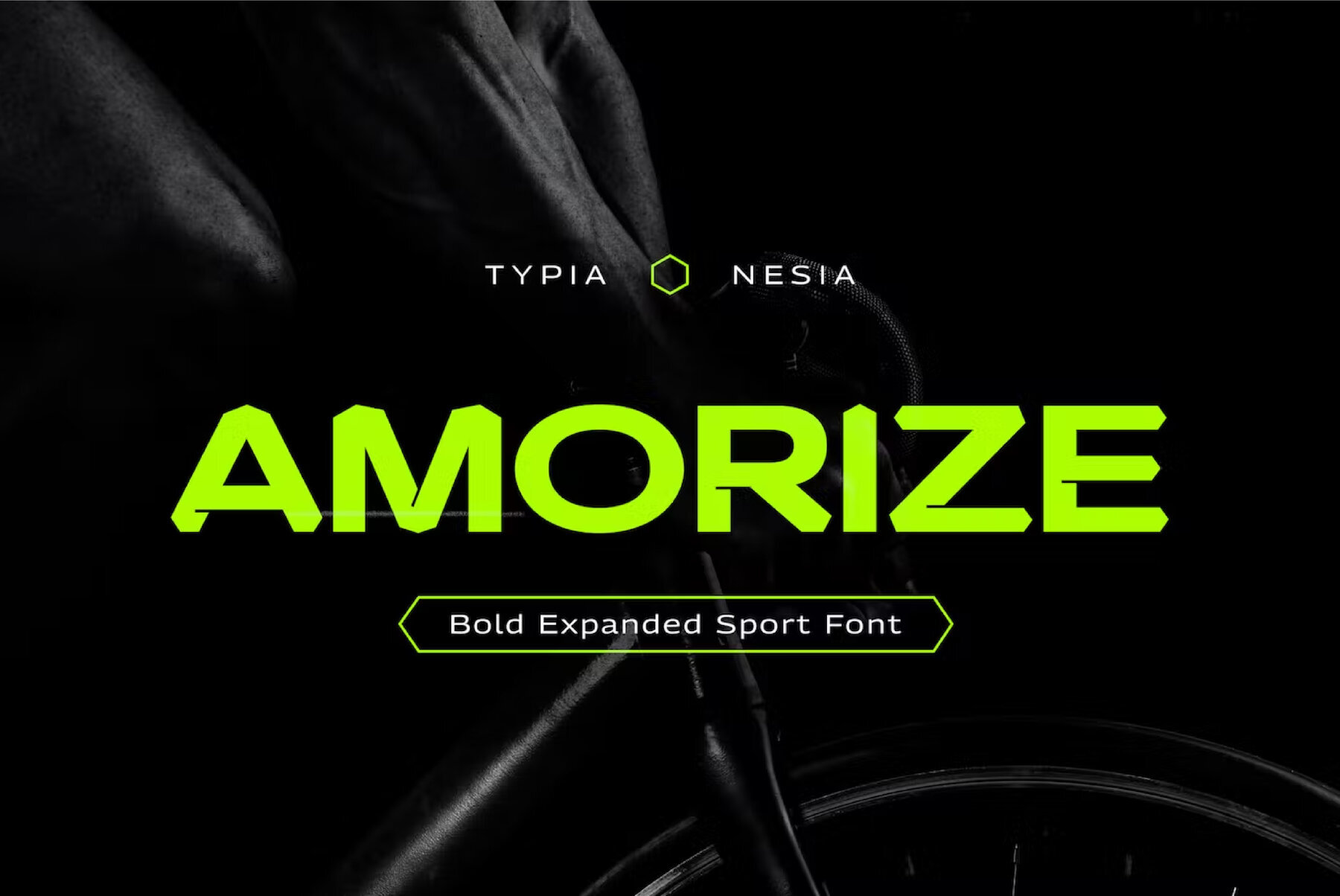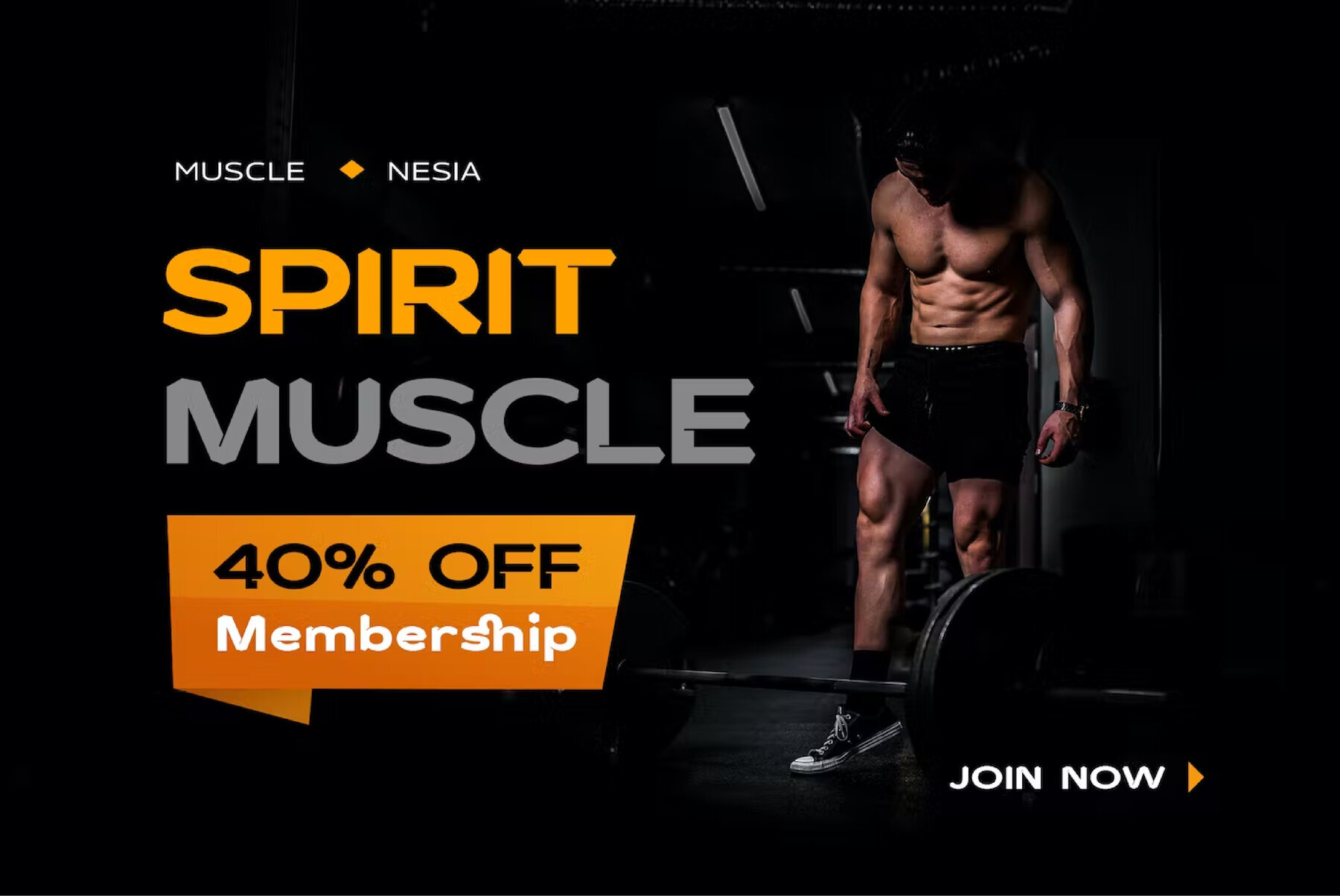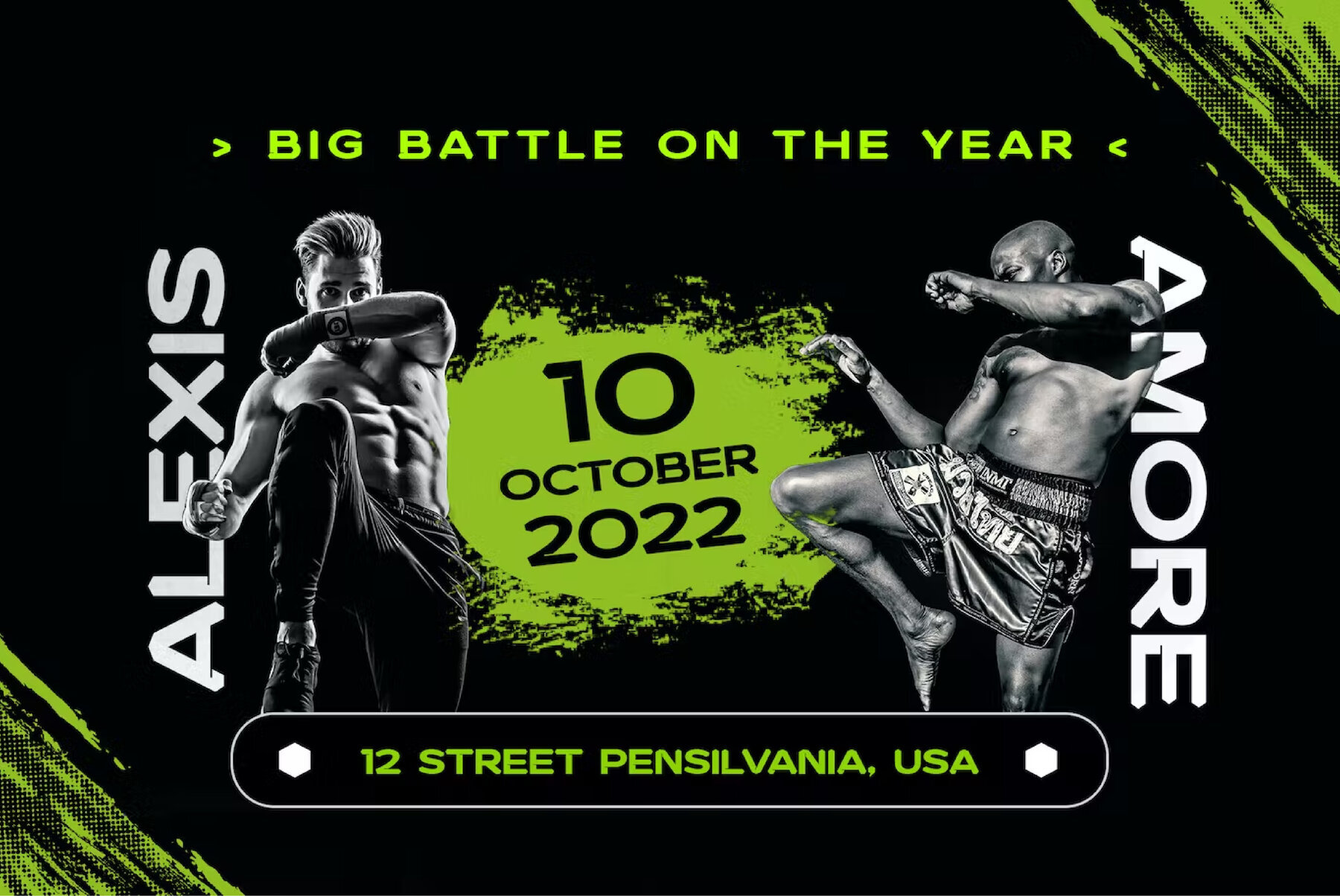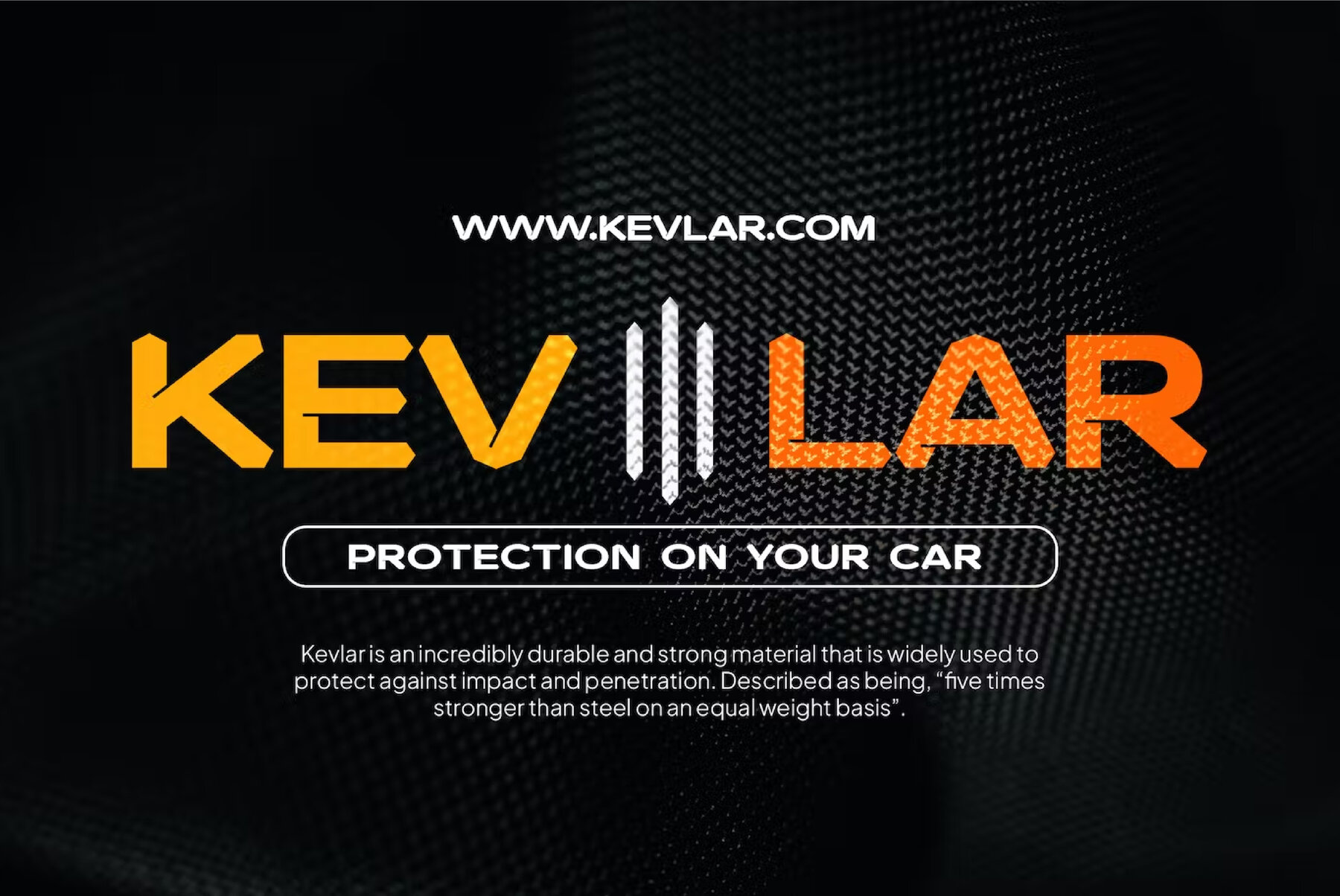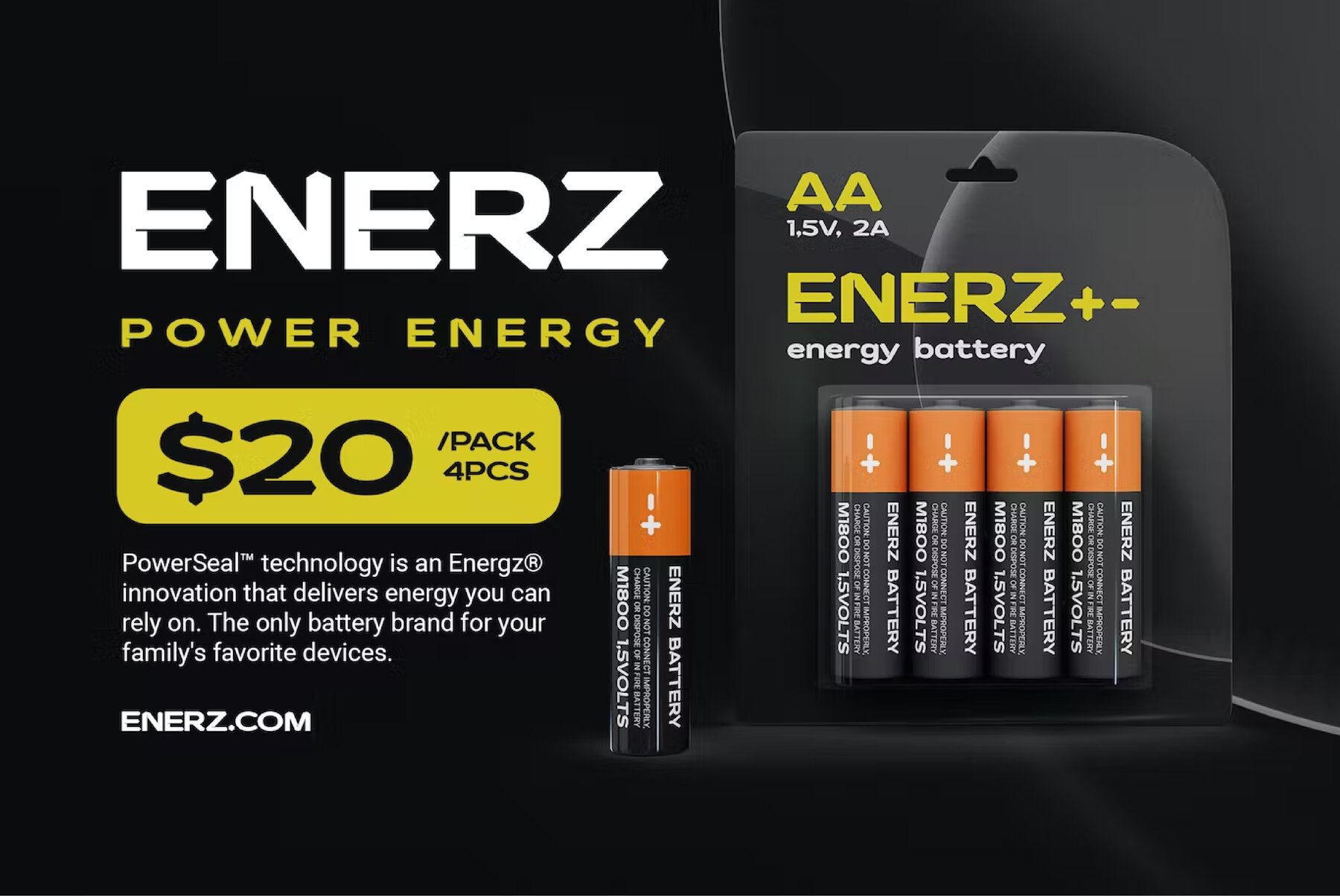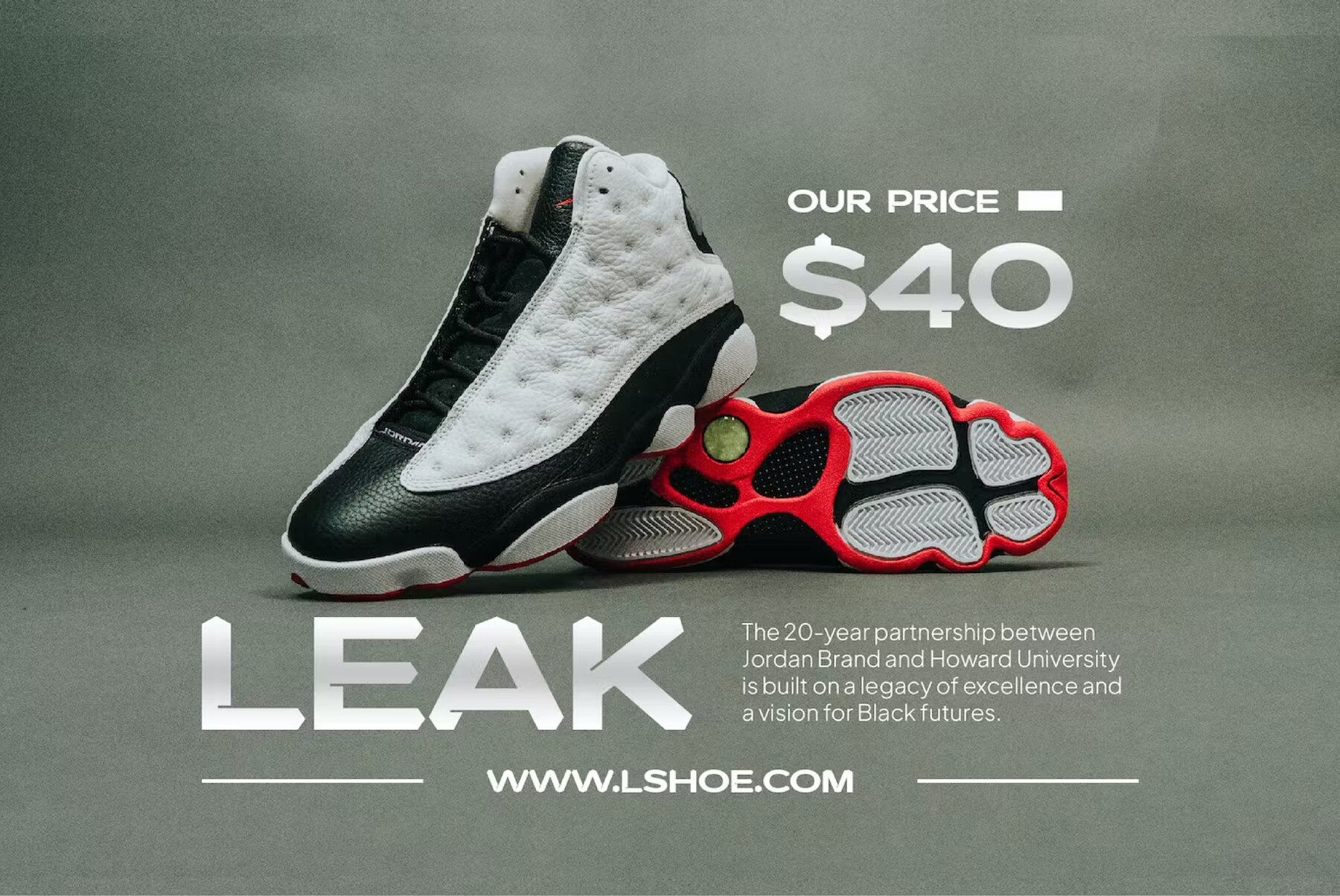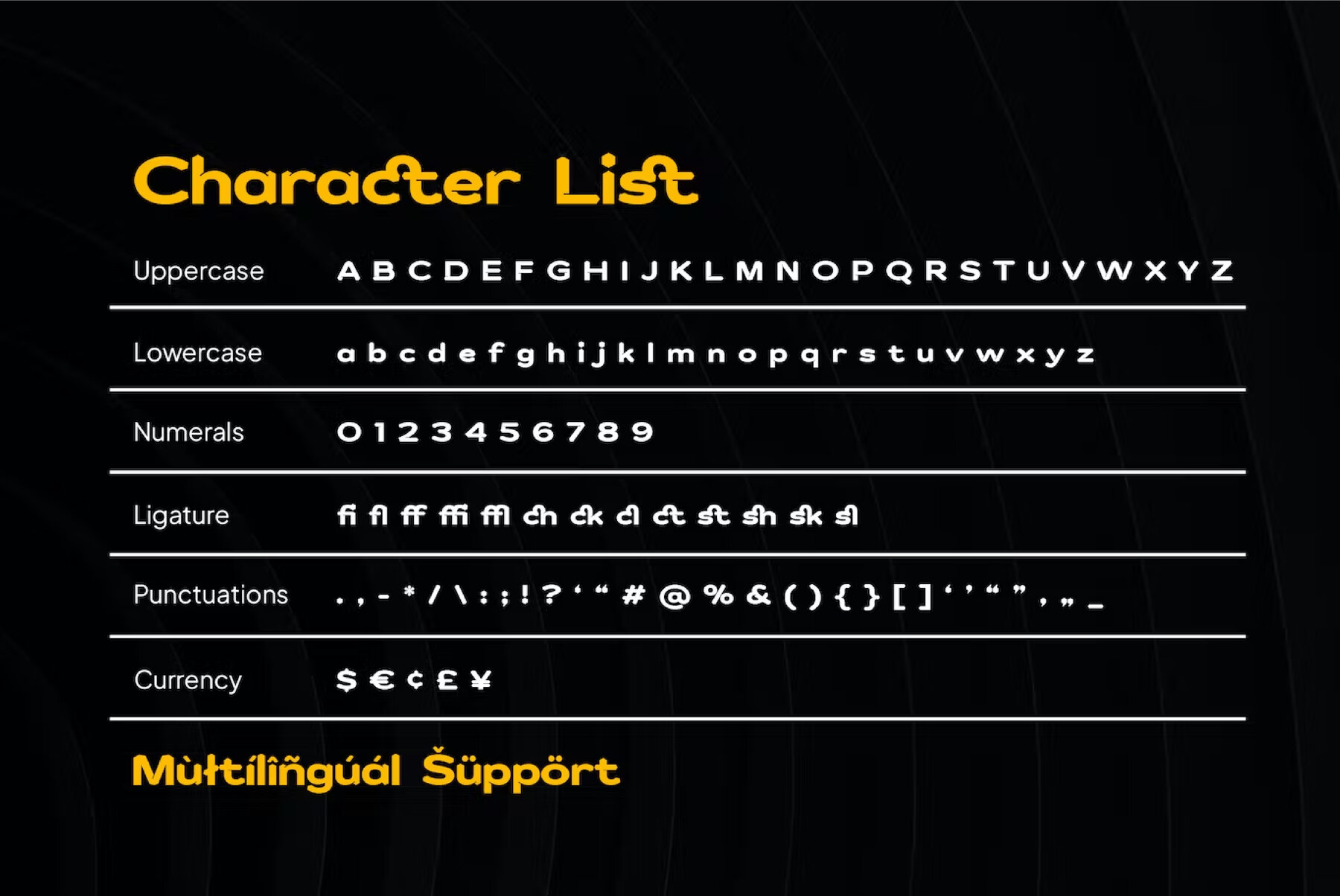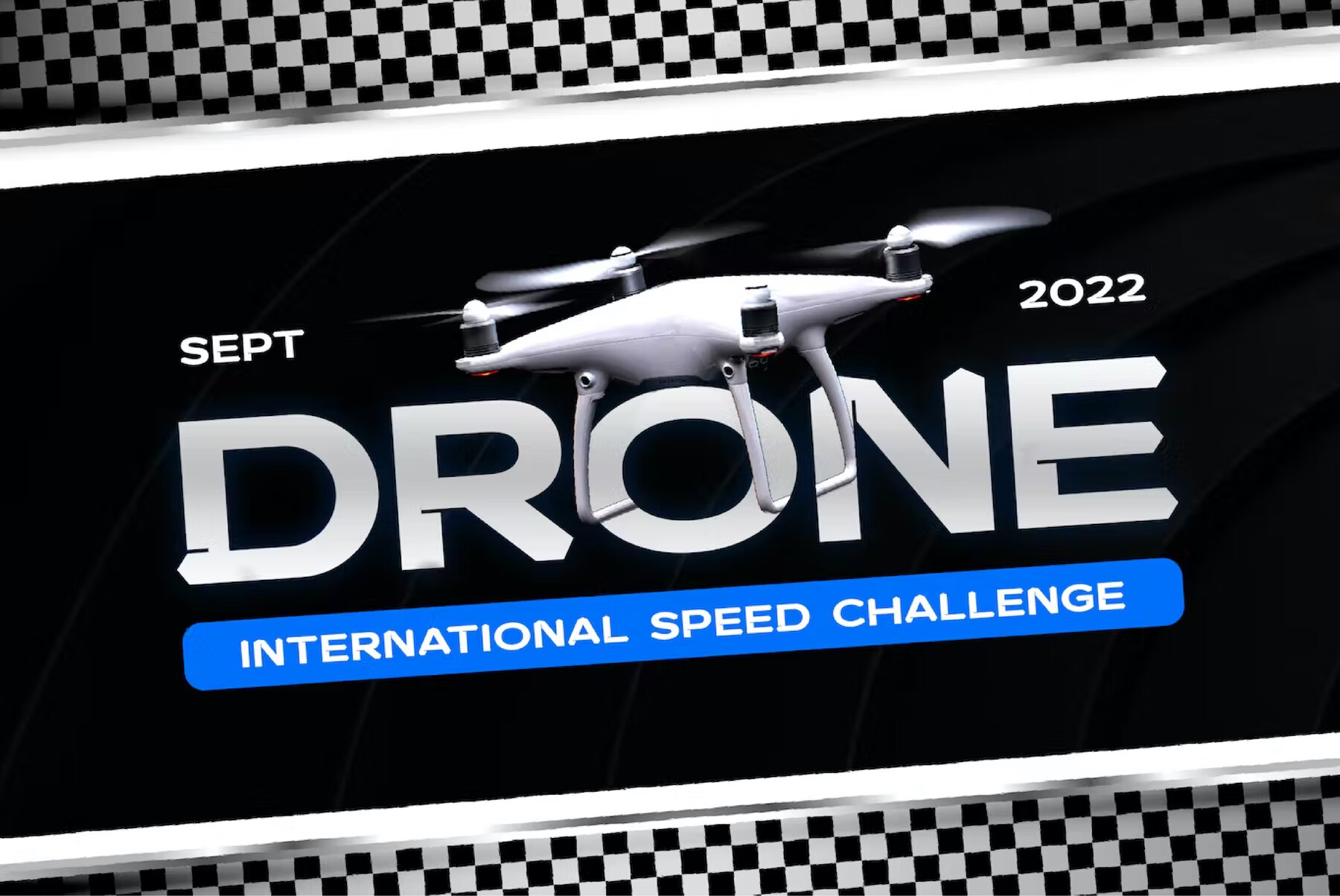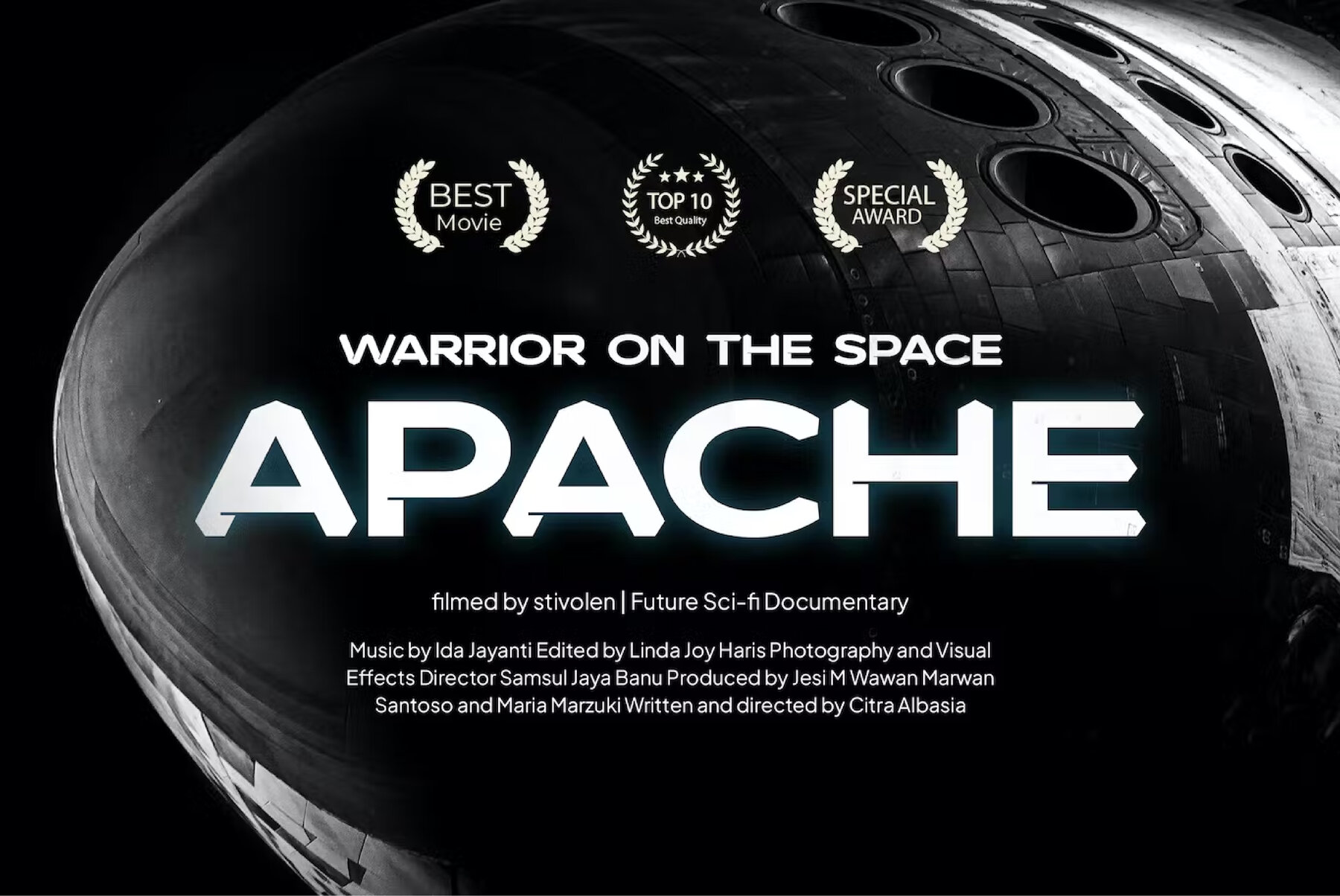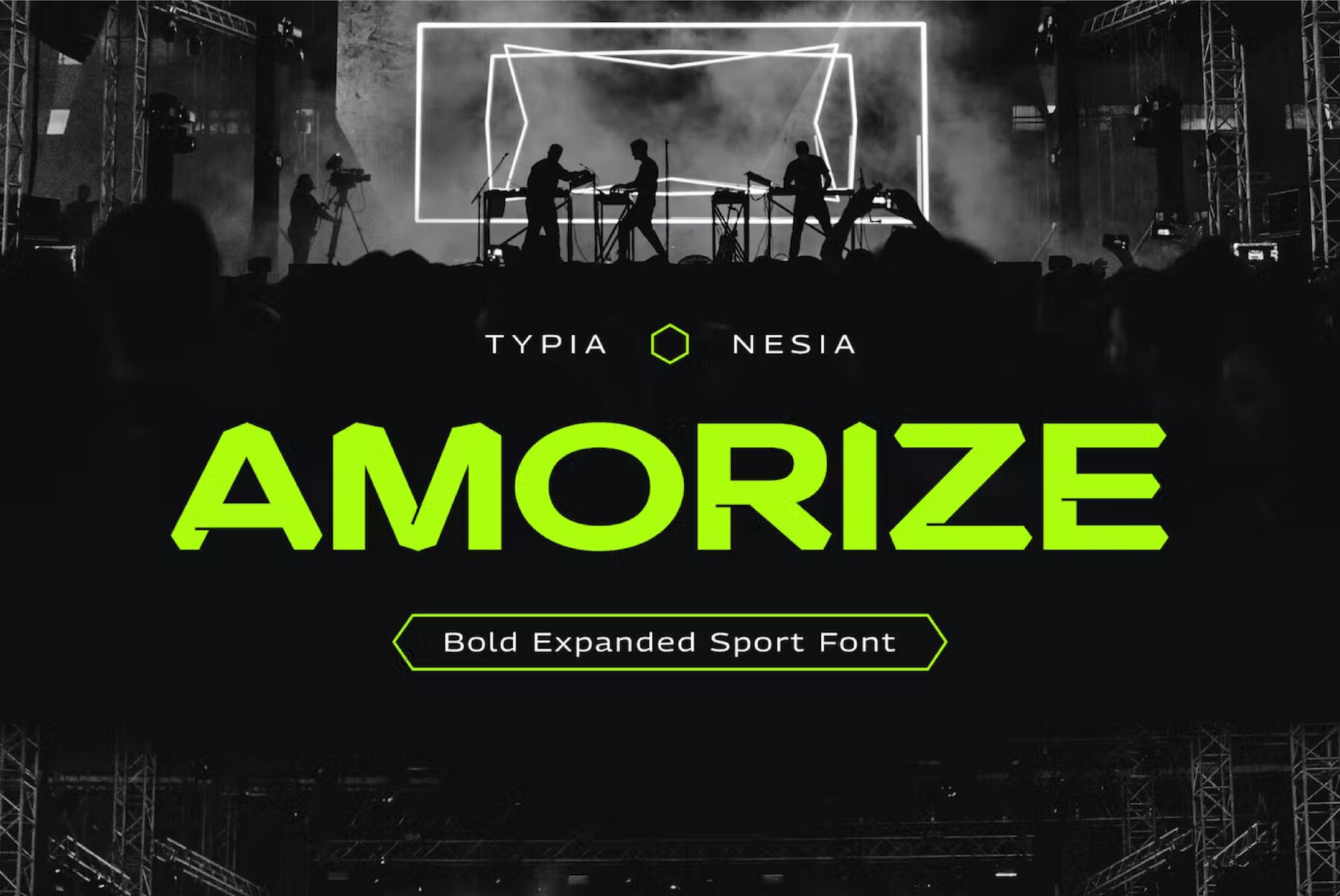
Amorize Font
Amorize is a modern, sport-inspired sans serif font designed to make a statement in a wide array of creative projects. Its bold, expanded design is ideal for capturing attention in sectors ranging from gaming and esports to fitness gym branding and modern advertising. Whether you are designing a logo for a supercar brand or crafting the perfect editorial layout, Amorize provides the dynamic presence needed to engage your audience.Amorize: Bold Sans Serif for Racing and Sport Design